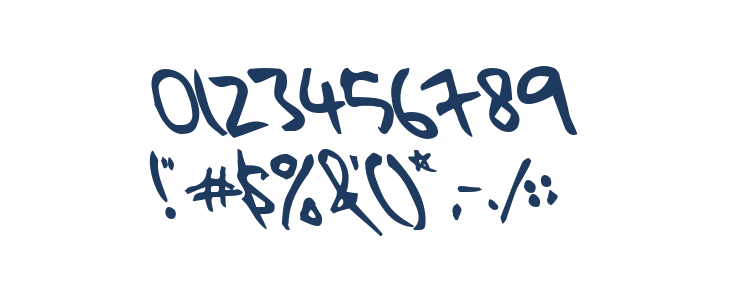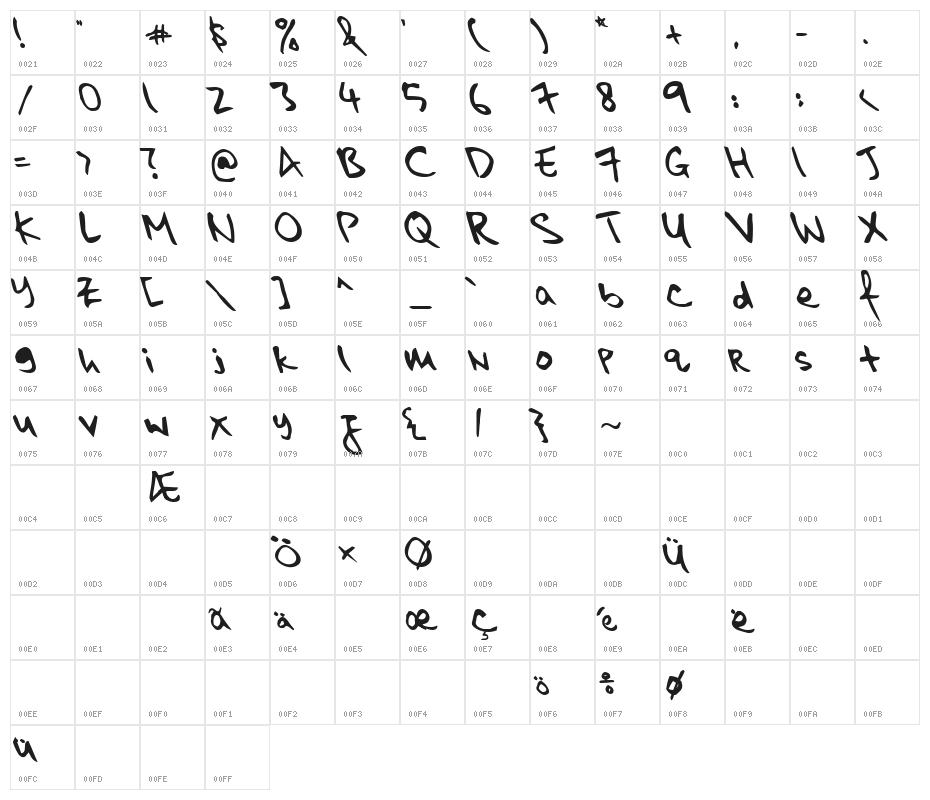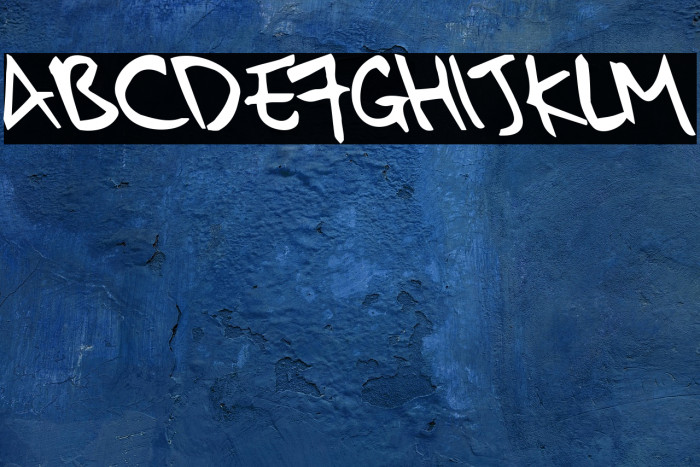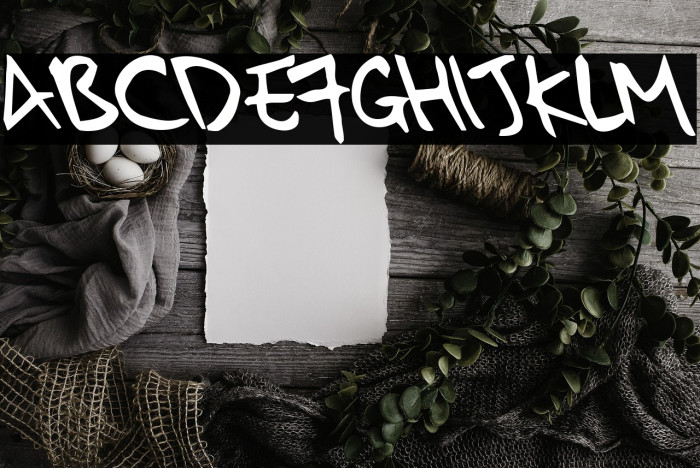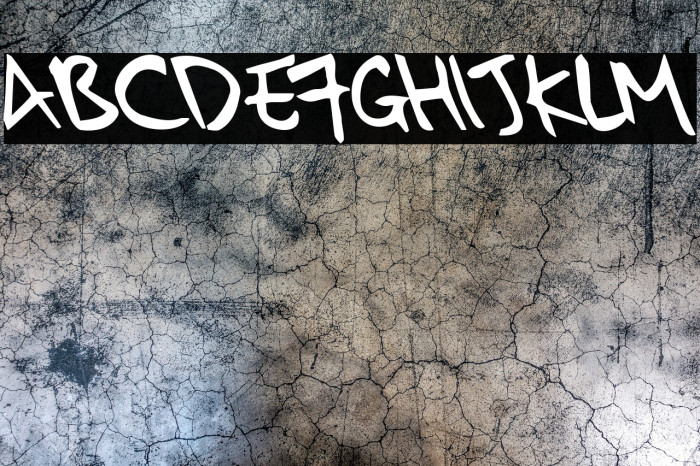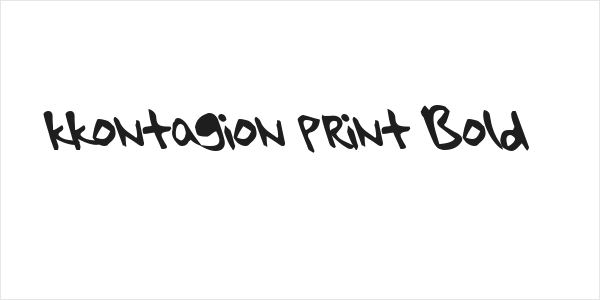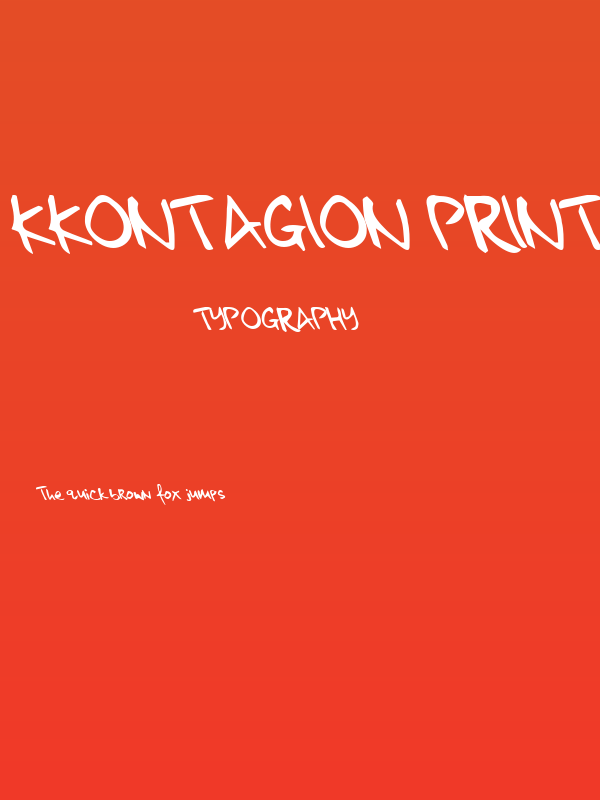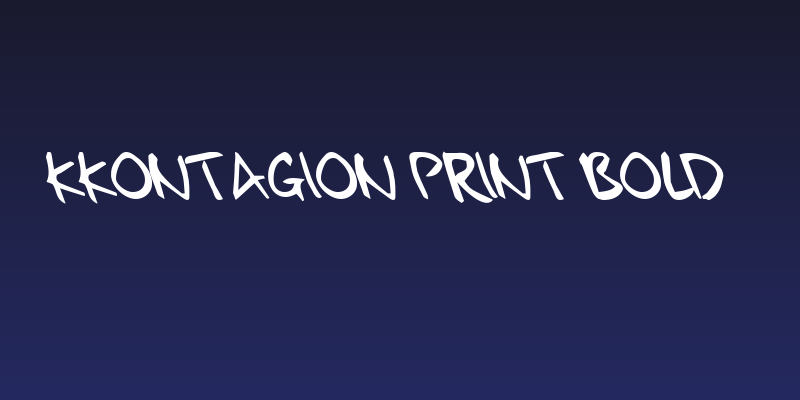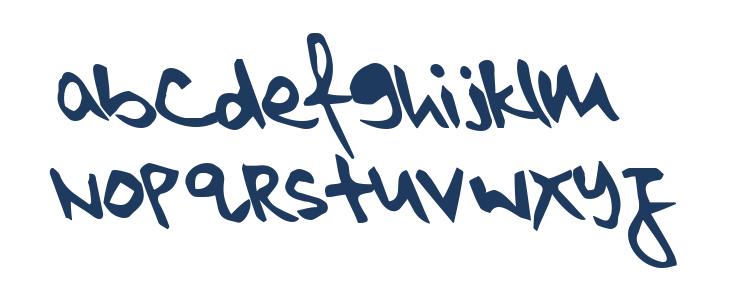
kkontagion print Bold Font
kkontagion print Bold Description
This font features a bold, expressive style with a handwritten appearance. The characters are dynamic and slightly irregular, giving a sense of movement and energy. The uppercase letters are bold and prominent, while the lowercase letters maintain a consistent flow with unique, artistic flair. Numbers and special characters follow the same bold and expressive style, making them stand out. The overall appearance is playful yet assertive, suitable for creative projects that require a strong visual impact.